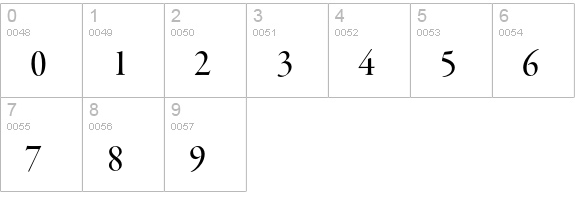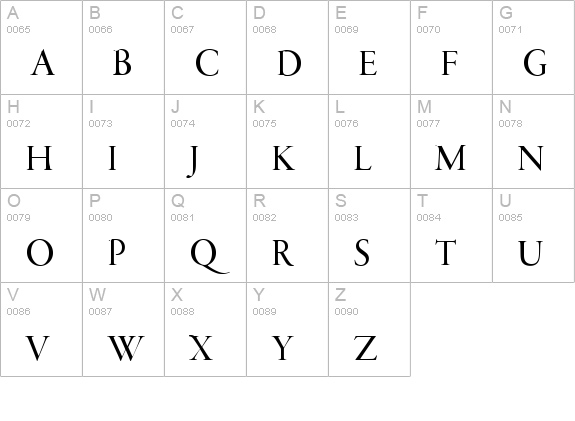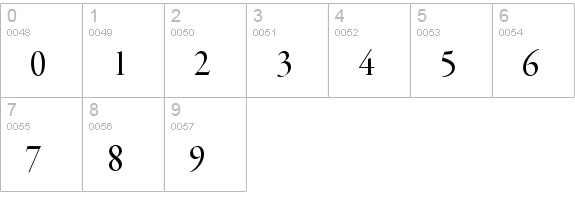
Garamond Premier Pro Medium Display Font Details
Garamond Premier Pro Medium Display is a balanced, medium-weight variant in the Garamond typeface family \xE2\x80\x94 well suited to sub-headlines, navigation, and balanced editorial work.
Garamond Premier Pro Medium Display font is a timeless and elegant typeface that exudes sophistication and classic appeal. With its medium weight, this font strikes the perfect balance between readability and impact, making it ideal for headlines, titles, and other display applications. The sleek and stylish design of Garamond Premier Pro Medium Display font makes it a versatile choice for a wide range of projects, from branding to editorial design. Its clean lines and subtle curves convey a sense of refinement and professionalism, while its classic serifs add a touch of traditional charm. Best of all, Garamond Premier Pro Medium Display font is available for free download at FontsMarket.com. Whether you're a designer looking to elevate your work or a business in need of a sophisticated typeface for your brand, this font is a fantastic choice that won't cost you a penny. Download it today and add a touch of timeless elegance to your projects.